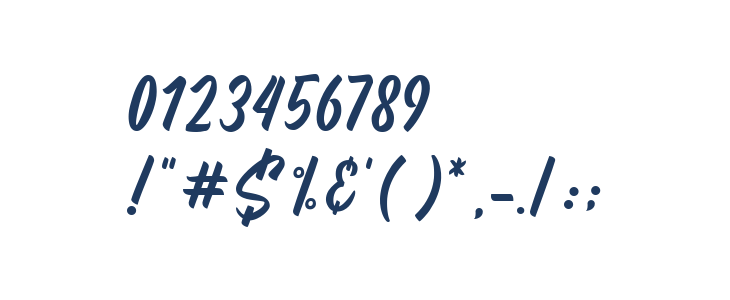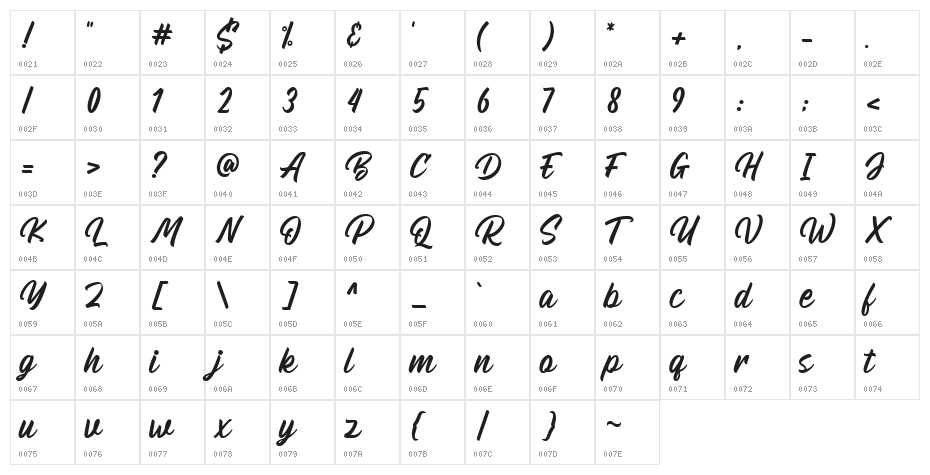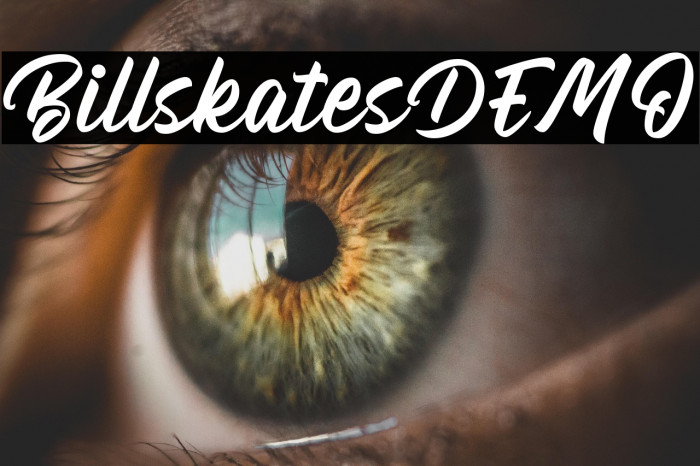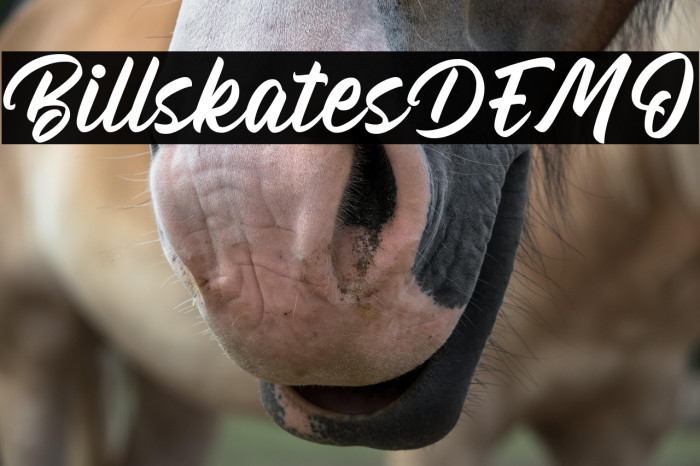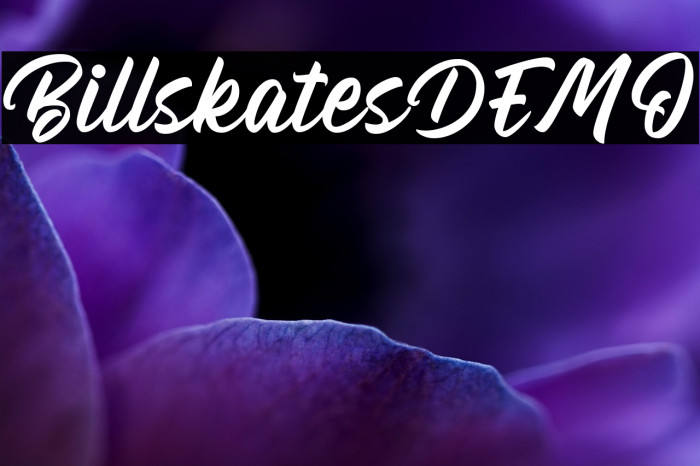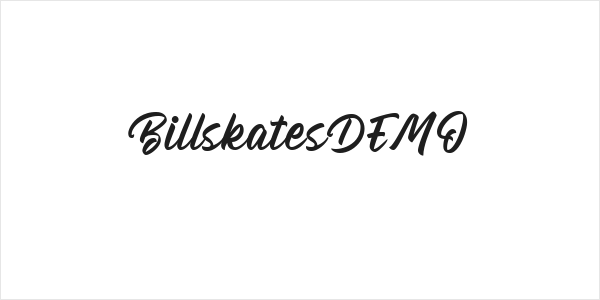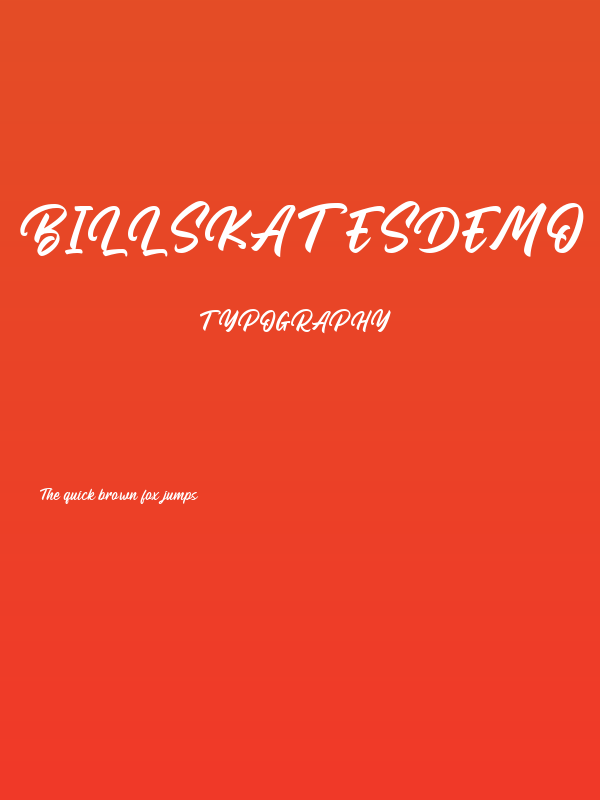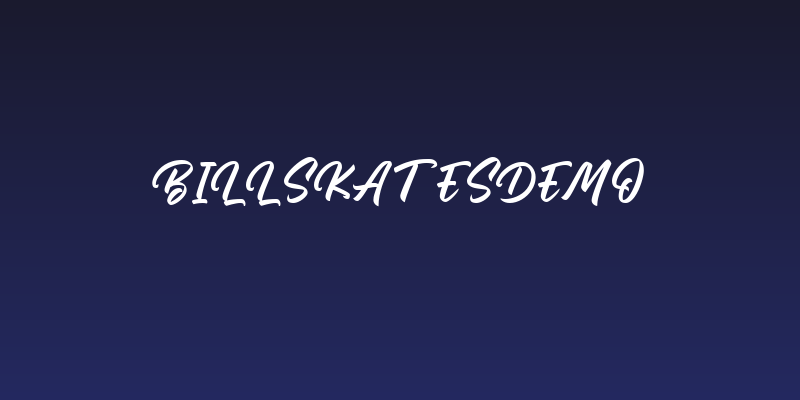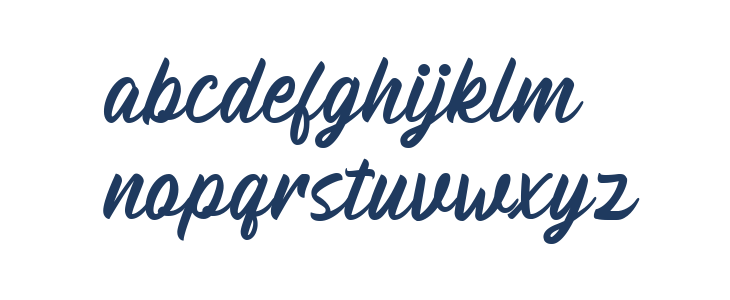
BillskatesDEMO Font
BillskatesDEMO Description
This font exhibits a bold, cursive style with a smooth, flowing appearance. The characters are connected, creating a sense of continuity and elegance. The uppercase letters are slightly larger and more pronounced, while the lowercase letters maintain a consistent flow. The numbers are bold and clear, matching the overall style of the alphabet. Special characters are well-integrated, maintaining the same fluidity and boldness. This font's design is both expressive and legible, making it suitable for various creative applications.
Use CaseLogos, Headlines, Invitations
Proposed ProjectsIdeal for branding, invitations, greeting cards, and artistic projects requiring a personal touch.